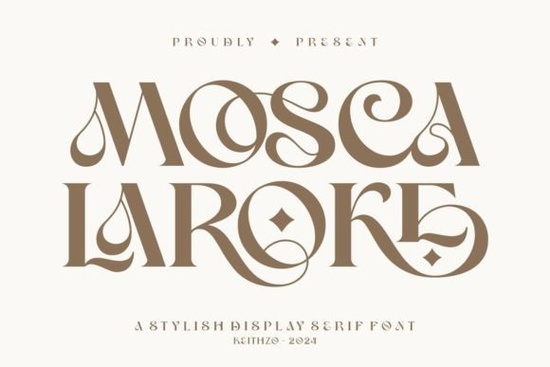
If you're looking for a serif font that balances romantic charm with modern polish especially for logos, wedding stationery, or small business branding the Mosca Laroke Font is worth your attention. It’s not overly ornate, but it carries quiet confidence: think soft curves, subtle contrast, and graceful letterforms that feel both timeless and intentional. Designed with care for real-world use, it works just as well on a product label as it does in a hand-lettered quote print or a boutique packaging layout.
What makes Mosca Laroke stand out visually?
Mosca Laroke isn’t trying to mimic vintage typography or chase trends. Instead, it offers a refined, contemporary serif look inspired by romantic aesthetics think candlelit dinners, handwritten love notes, and quiet elegance not clichéd flourishes. The uppercase letters have gentle swashes; the lowercase feels relaxed but never sloppy. Punctuation, numerals, and symbols are carefully drawn to match the tone, and ligatures add subtle sophistication where needed (like “fi” or “fl”) without overwhelming readability.
Where does it work best in practice?
This font shines in projects where personality and polish matter more than neutrality:
- Wedding & event design: invitations, menus, signage, and vow books especially when paired with soft textures or muted palettes.
- Small business branding: coffee shop logos, artisanal soap labels, or handmade jewelry tags where warmth and authenticity connect with customers.
- Print-on-demand products: greeting cards, wall art prints, tote bags, and mugs its strong x-height and clear spacing help it hold up even at smaller sizes.
- Digital quotes and social graphics: because it reads well on screens and adds visual interest without sacrificing clarity.
It’s not meant for long-form body text (like a novel or blog post), but that’s fine it’s built as a display font, not a workhorse text face. Think of it like a favorite accessory: chosen deliberately, worn with purpose.